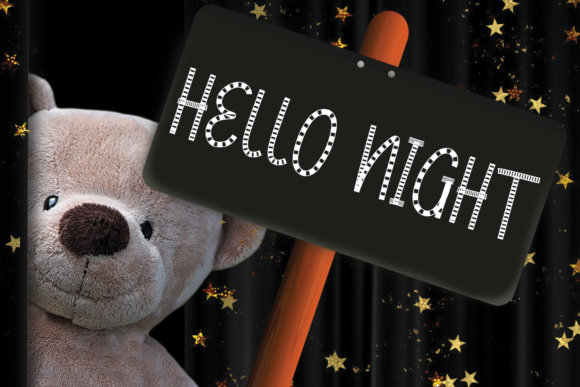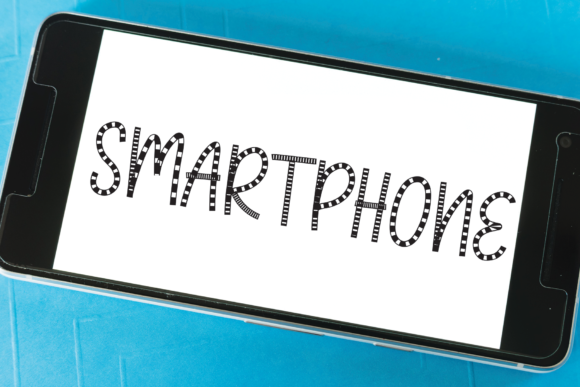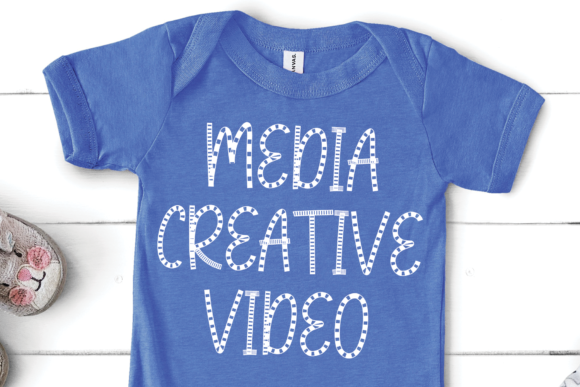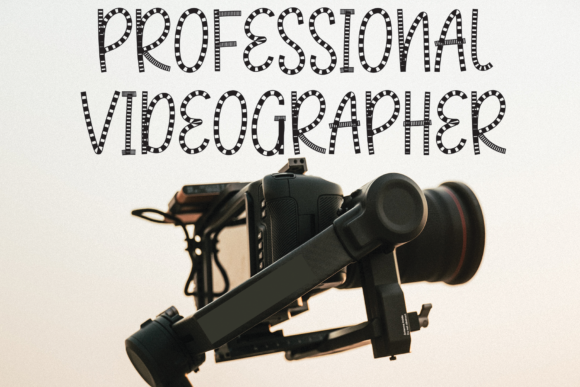
Introduction to Media Videography Font
Media Videography is a neat and casual display font.
No matter the topic, this font will be an incredibly asset to your fontsโ library, as it has the potential to elevate any creation .
Media Videography Font offers exceptional quality and versatility, making it a valuable addition to your design toolkit. Whether you’re creating for personal projects or commercial use, Media Videography Font delivers professional results.